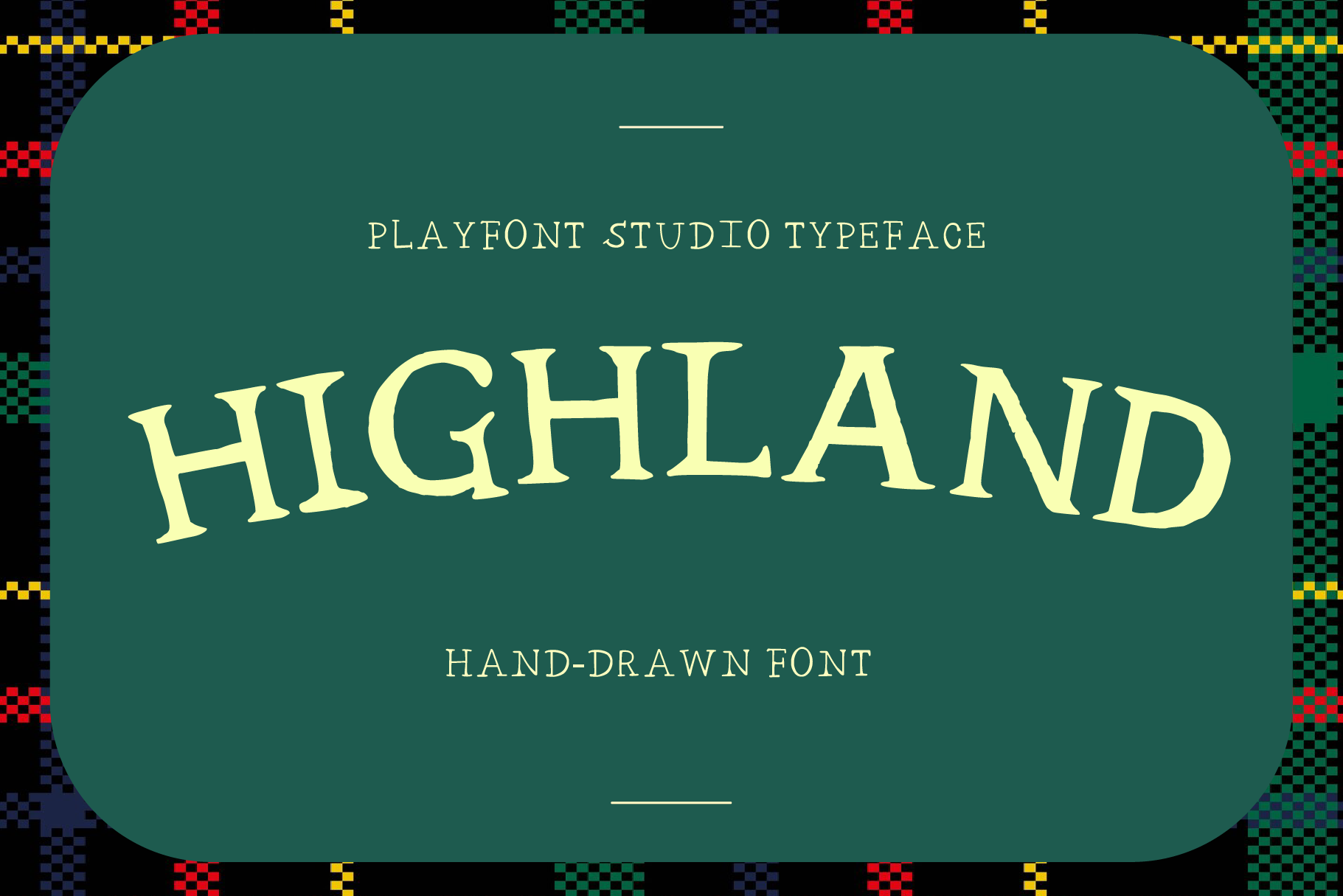
Highland - A Rustic Handmade Font
Meet Highland - a handmade font built for brands that want to feel rooted, rugged, and real.
With its warmth and organic character, Highland is the perfect choice for craft breweries, whisky labels, wedding stationery, outdoor brands, farm-to-table restaurants, and rustic packaging. It brings the soul of hand-lettering without sacrificing legibility, making it as versatile as it is distinctive.
- Craft beer, spirits & beverage branding
- Wedding invitations & stationery
- Outdoor, hiking & adventure brands
- Artisan food packaging & farmers' market branding
- Logo design, signage & print
Whether you're building a brand from scratch or refreshing a label, Highland gives your work that handcrafted quality buyers are actively searching for.